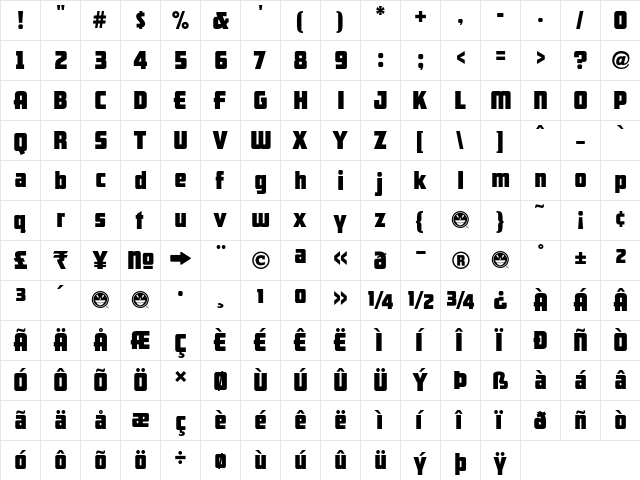
ARB 66 Neon Block JUN-37 Regular
Design Context for ARB 66 Neon Block JUN-37 Typeface
ARB 66 Neon Block JUN-37 channels digital-age aesthetics through its sharp, structured letterforms — ideal for brands that want to signal innovation.
Pro Tip: Try ARB 66 Neon Block JUN-37 with generous letter-spacing in UI labels and navigation — the geometric forms benefit from room to breathe.